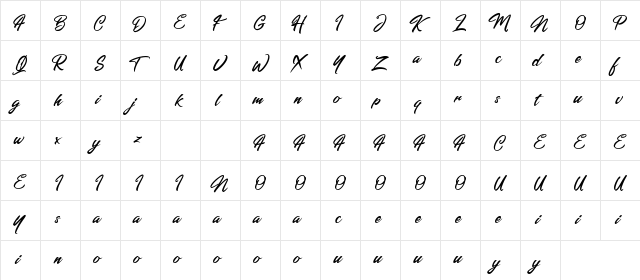
Americanism Regular
Design Context for Americanism Typeface
Americanism is a composed and adaptable typeface that performs quietly and consistently across a wide range of design contexts.